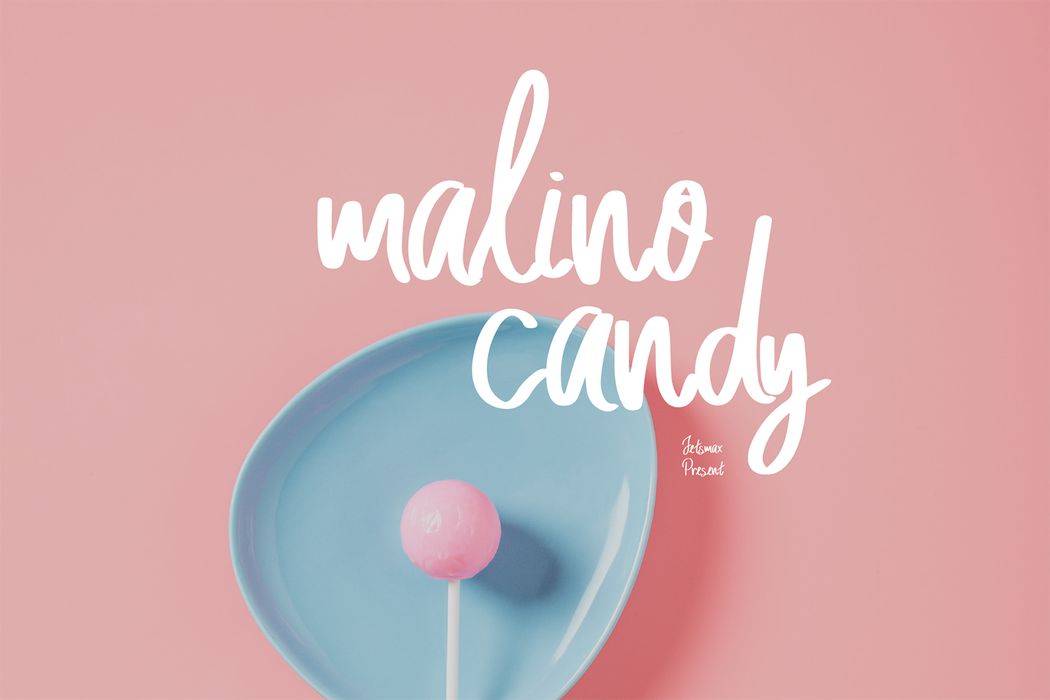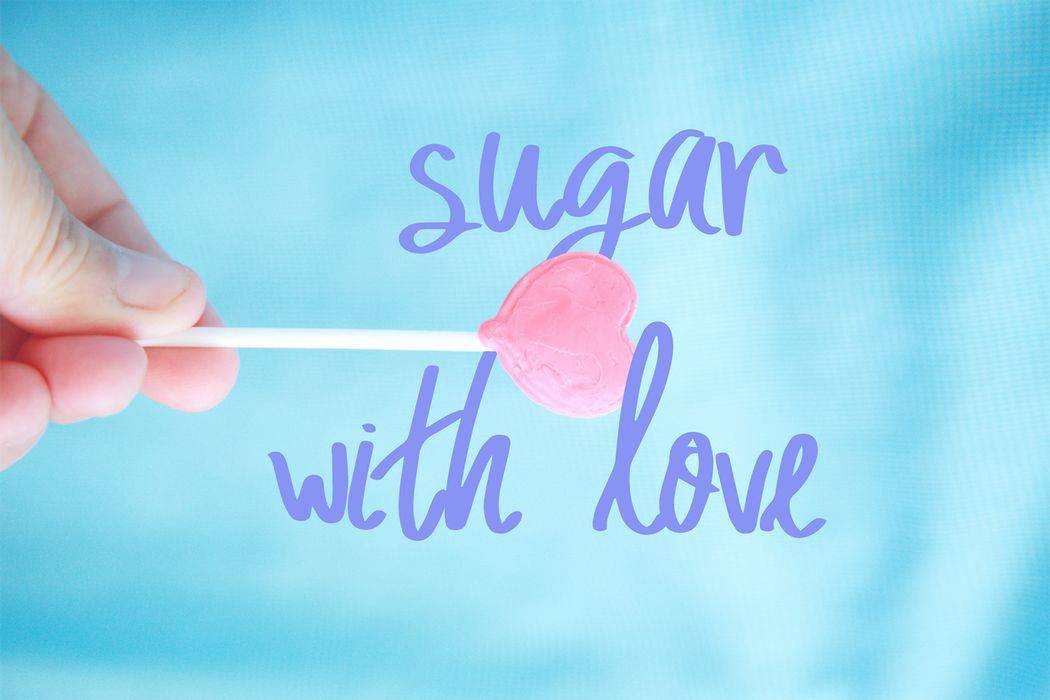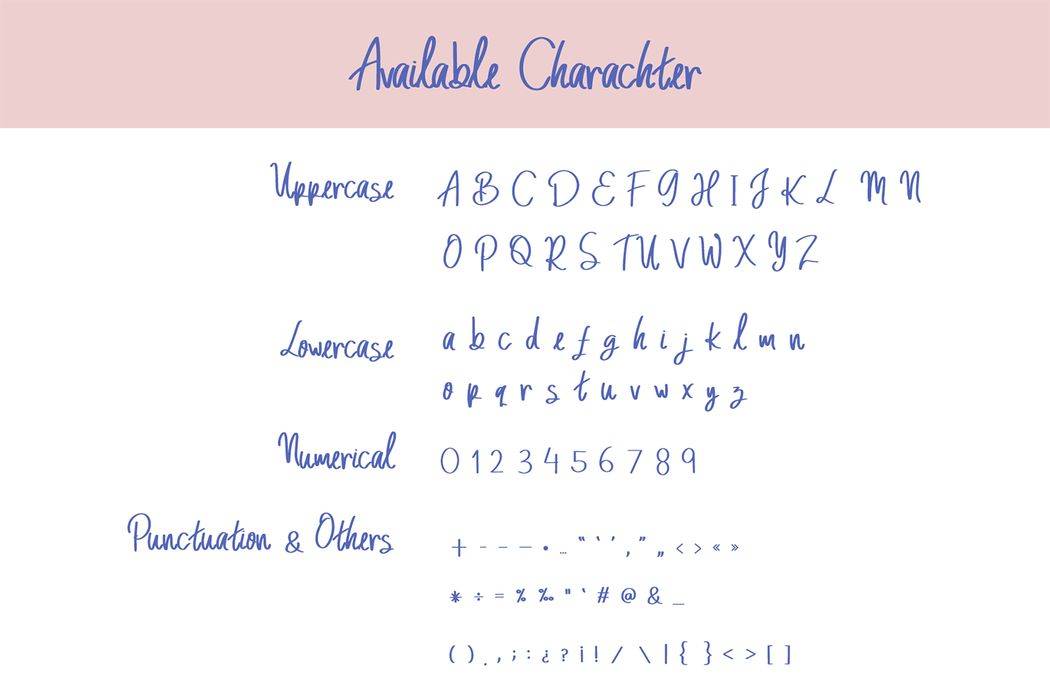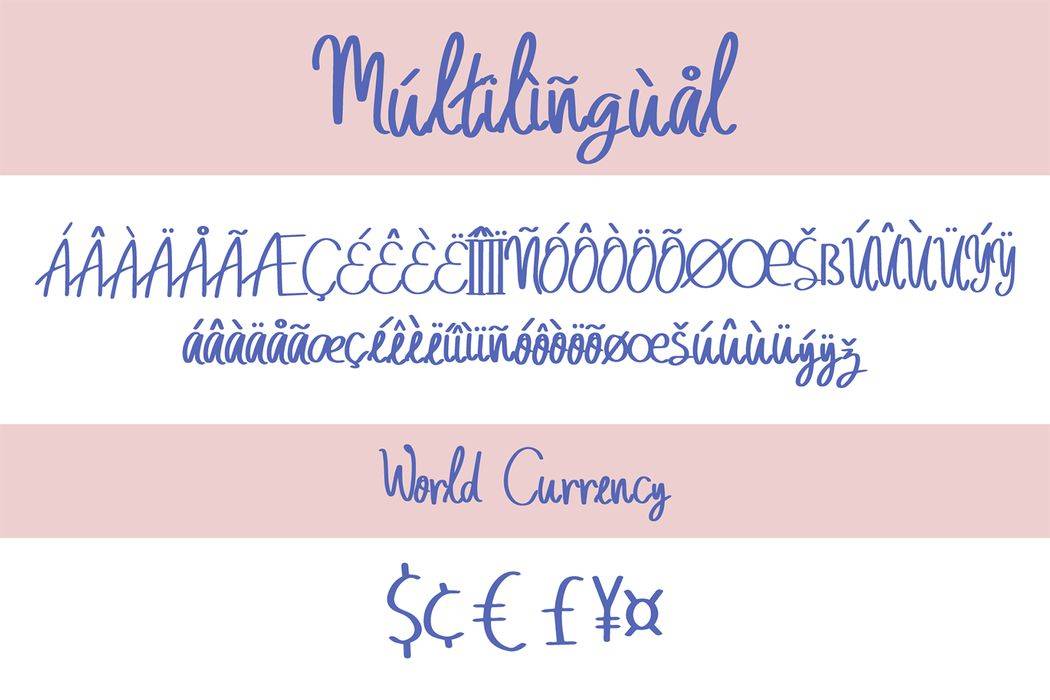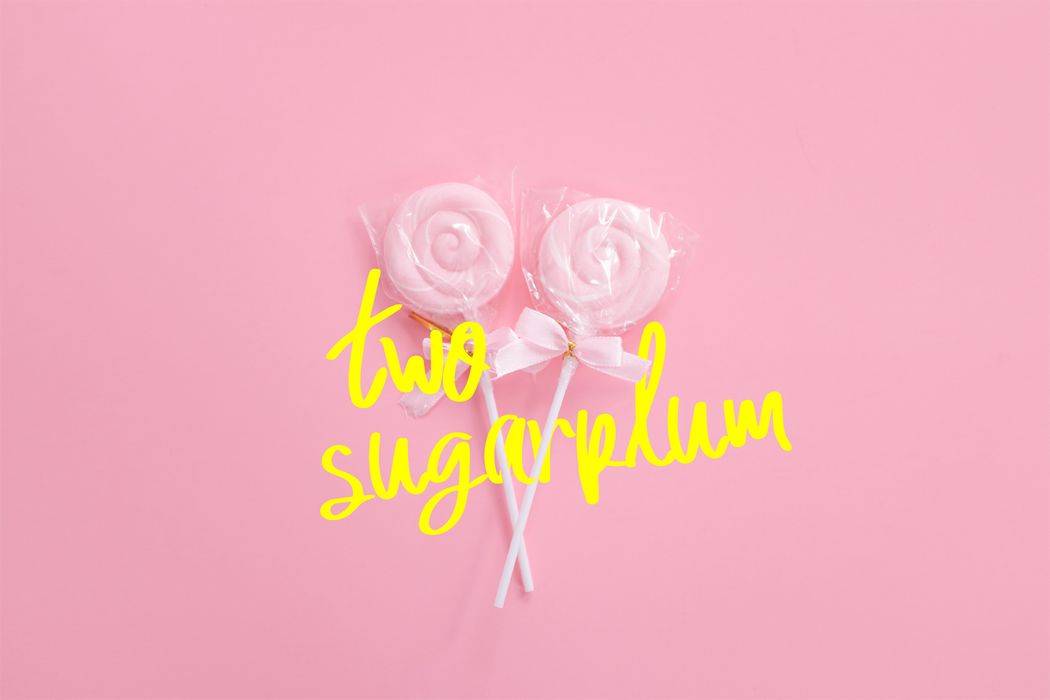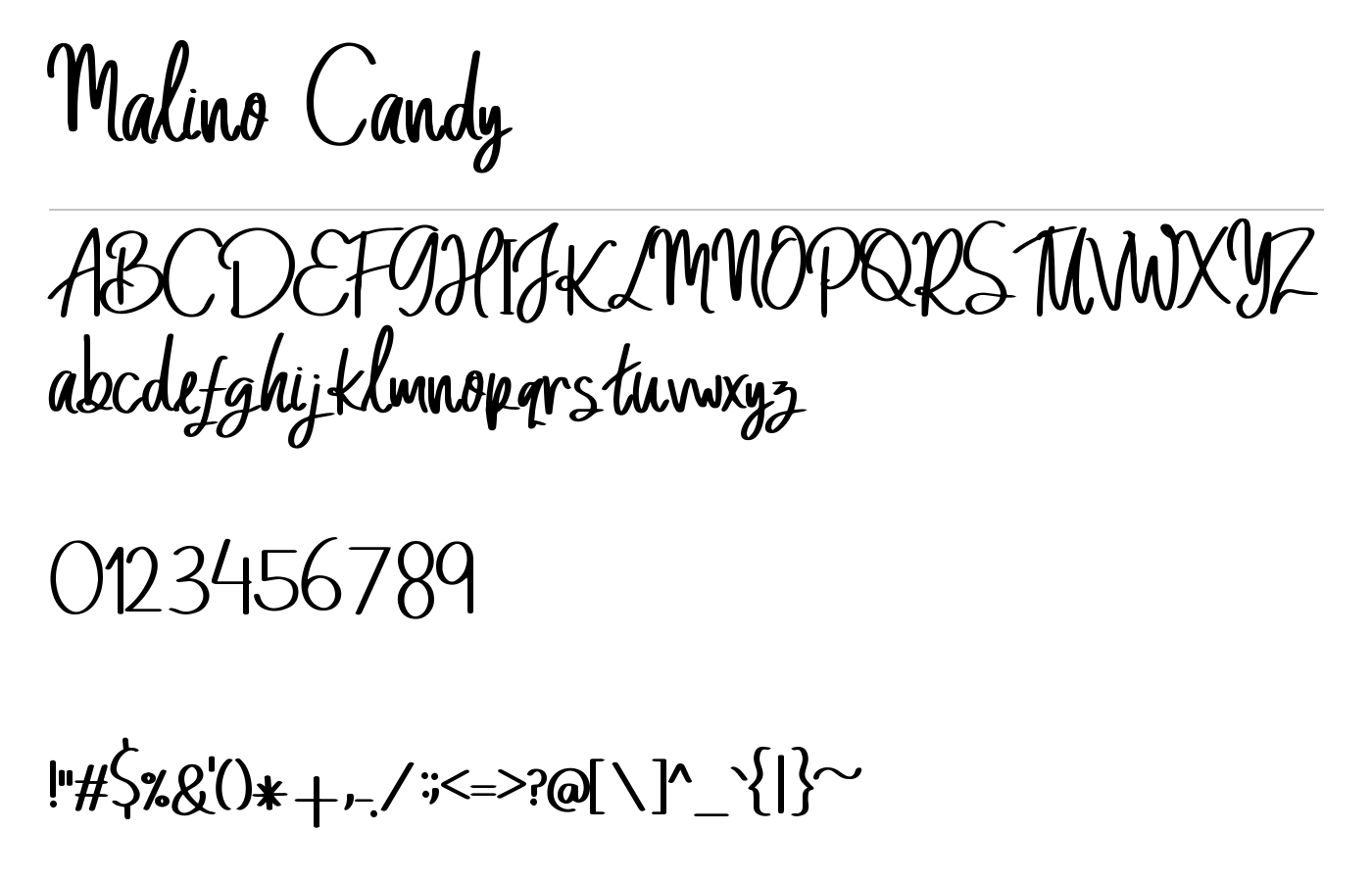
Malino Candy is a lively and playful handwritten script font featuring tall, slender letterforms with a smooth, flowing style. Its thin strokes and casual curves give it a charming, friendly personality perfect for invitations, branding, and creative designs that want to convey warmth and approachability. This font works well in headlines and decorative uses where a personal, hand-crafted feel is desired.
| Font family | Malino Candy Font |
| Release date | 2020-12-12 |
| Designer | Ril Anwar |